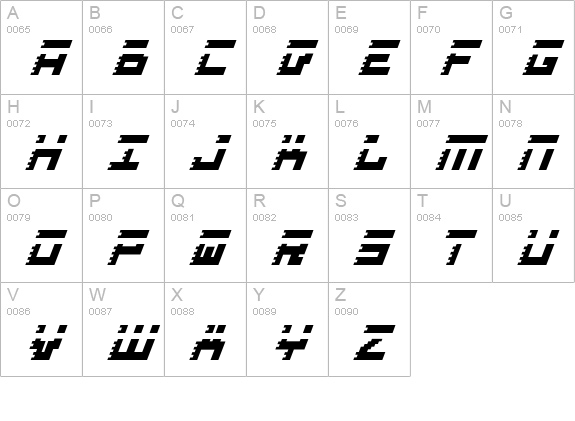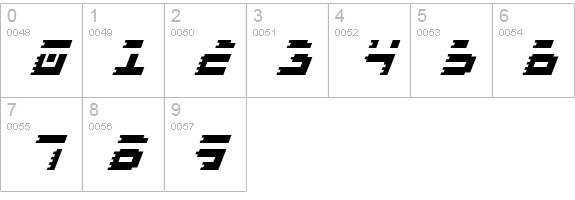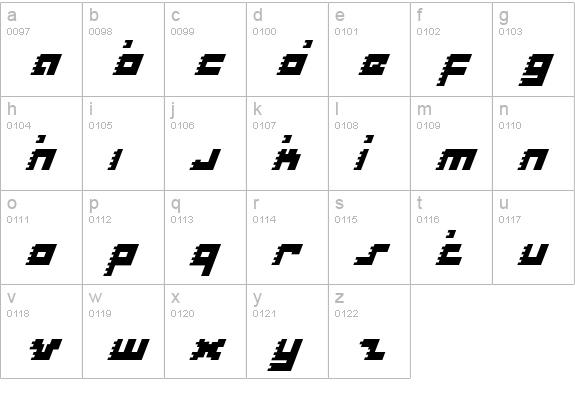
Roid Rage Condensed Italic is a distinctive, condensed-width, italic variant in the Roid typeface family \xE2\x80\x94 well suited to design and typography projects.
Roid Rage Condensed Italic font is a sleek and dynamic typeface that exudes energy and boldness. Its condensed design and slanted italics create a sense of movement and urgency, making it perfect for headlines, titles, and attention-grabbing text. The sharp, angular edges give it a modern and edgy look, while the slightly condensed spacing allows for maximum impact in a limited space. This font is versatile and can be used in a variety of design projects, from posters and flyers to logos and branding materials. Its unique style will make your text stand out and leave a lasting impression on viewers. Best of all, Roid Rage Condensed Italic font is free to download at FontsMarket.com. So don't miss out on this opportunity to add a touch of excitement and dynamism to your next design project with this eye-catching typeface.